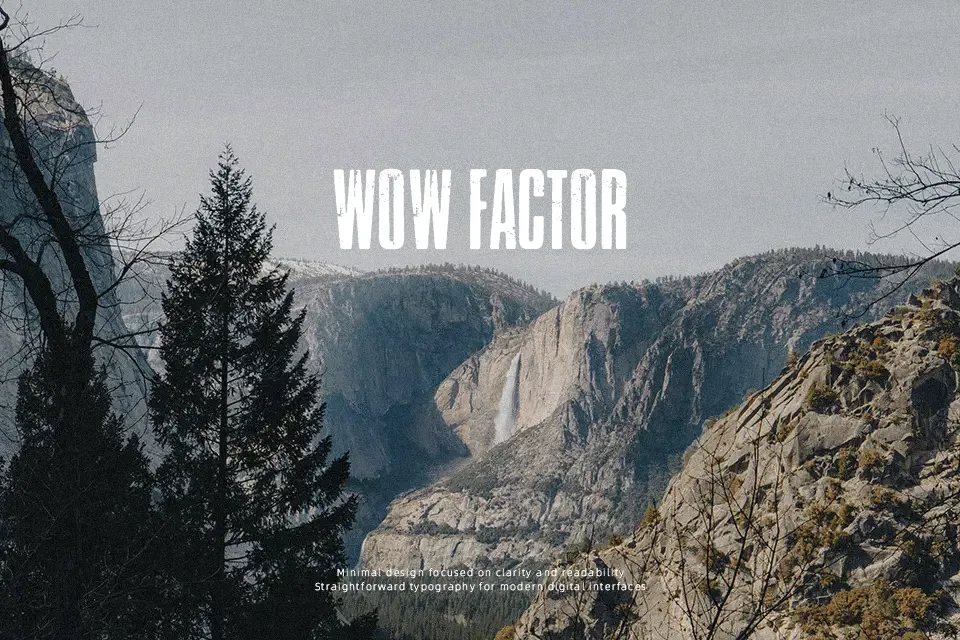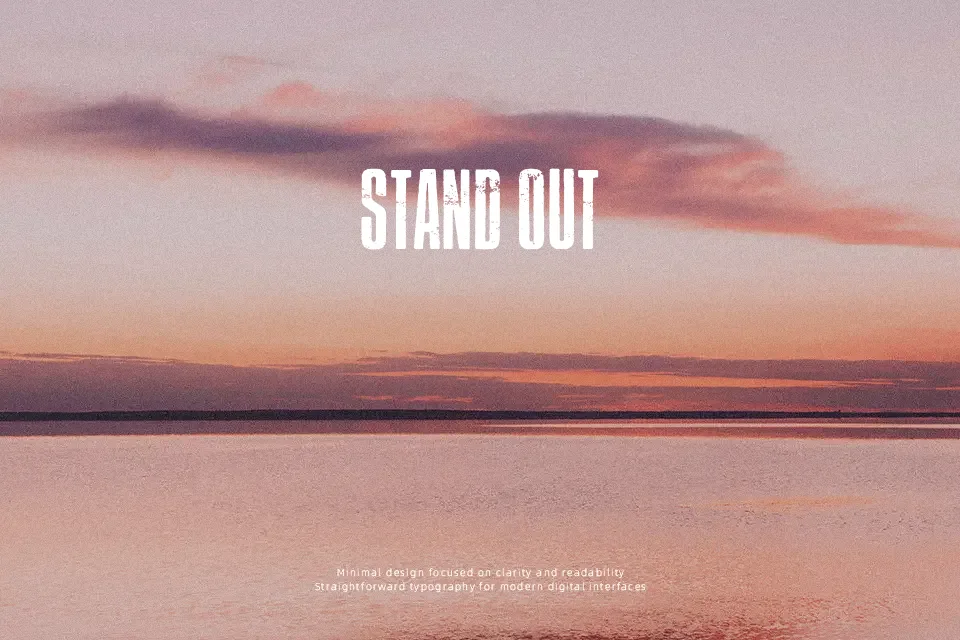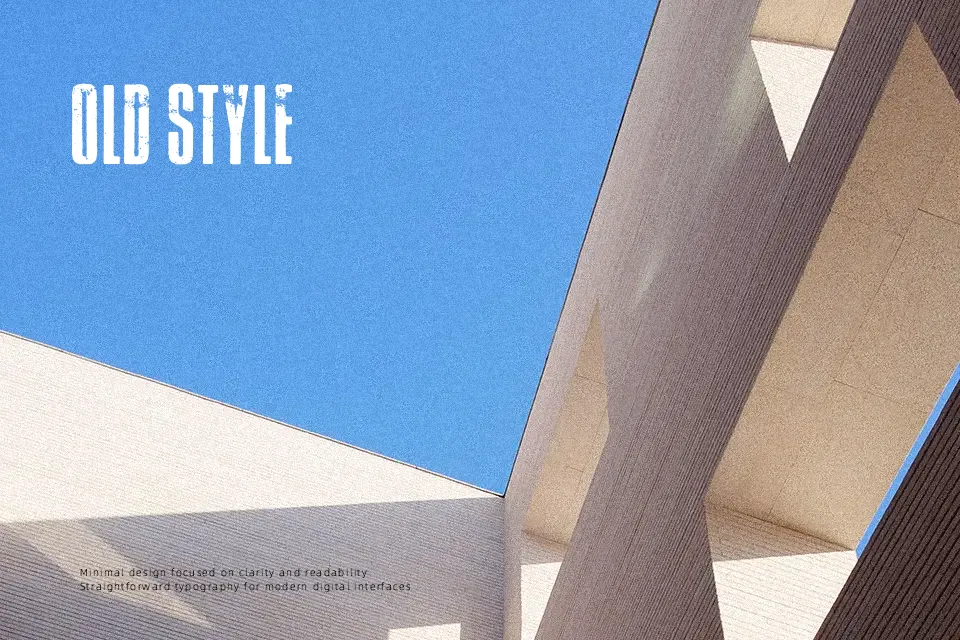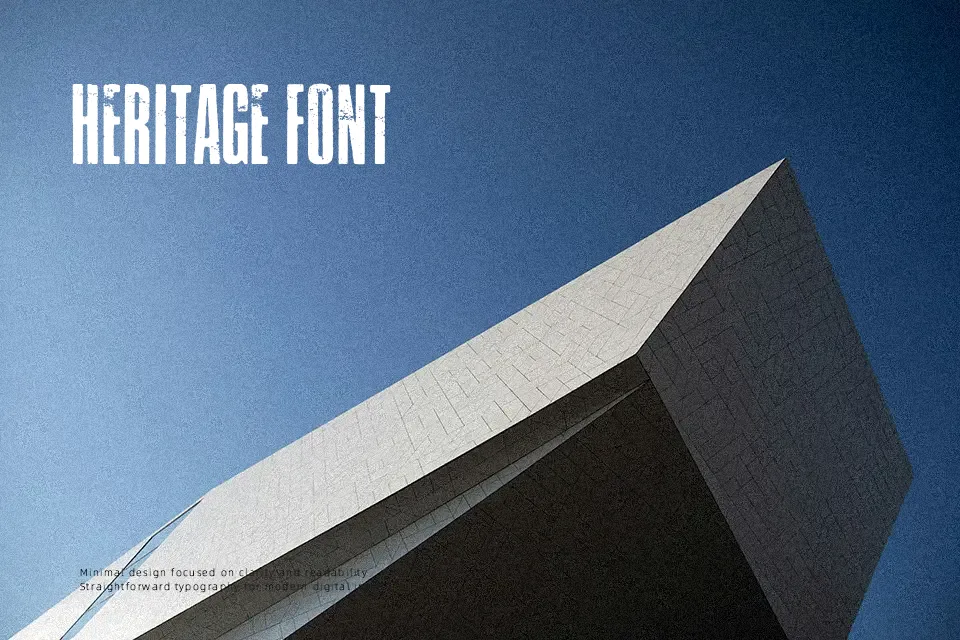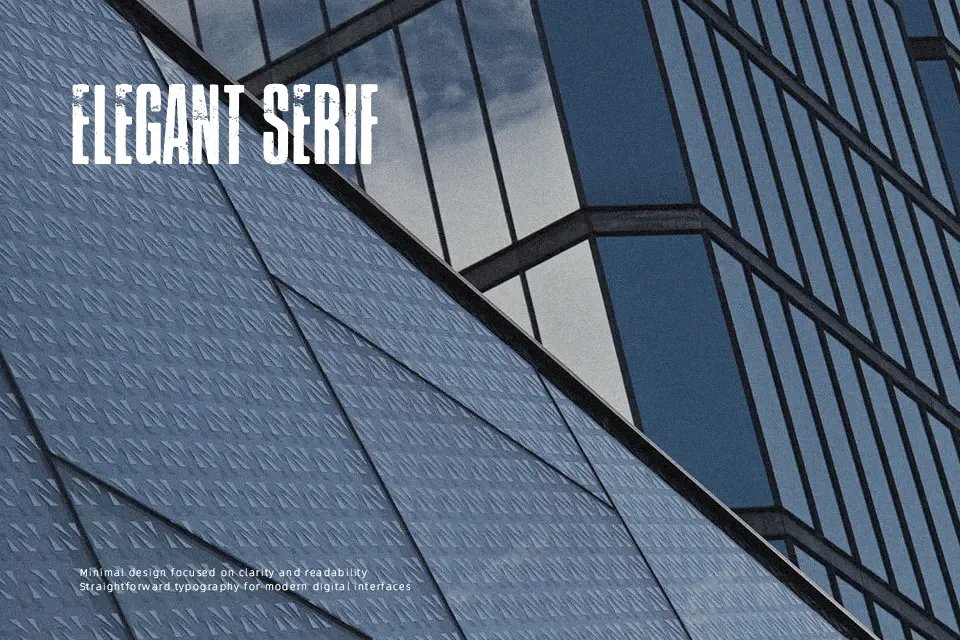
Atlantida Font
Worn strokes, uneven edges, and a rough texture define Atlantida’s visual character — it reads more as damaged than distressed, in the best possible way. The eroded treatment gives each letter a sense of age and wear that works well for concert merchandise, dark-themed poster headlines, or tattoo-adjacent branding. Its extra-condensed proportions mean it stacks efficiently in narrow layouts. Where it struggles is legibility at small sizes; the erosion effect breaks down quickly below 18–20pt, making it unsuitable for body copy or detailed UI elements. This is a font you reach for when a design needs attitude, not refinement — use it large, use it sparingly.
Best For:- Dark or alternative music poster headlines
– Tattoo-style logo lettering
– Horror or Halloween graphic headers
– Band merchandise and apparel prints
Not Ideal For:- Small-size body text or captions
– Corporate or professional documents
– UI design or digital interfaces
– Multilingual or extended character set needs (partial glyph set)
Perfect for branding, halloween, and headline, with a bold and decorative style.